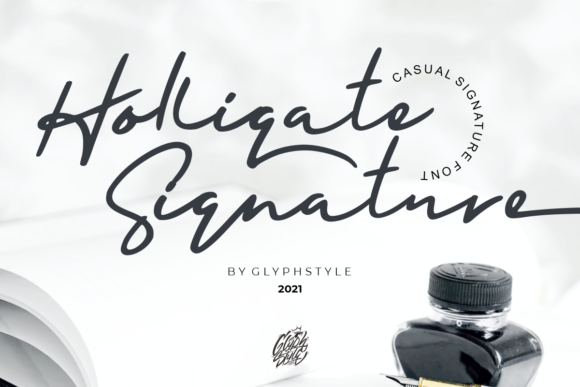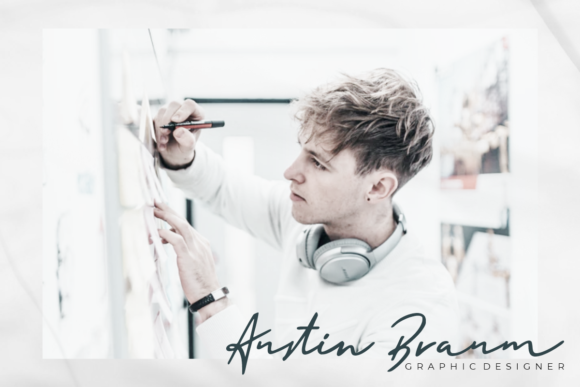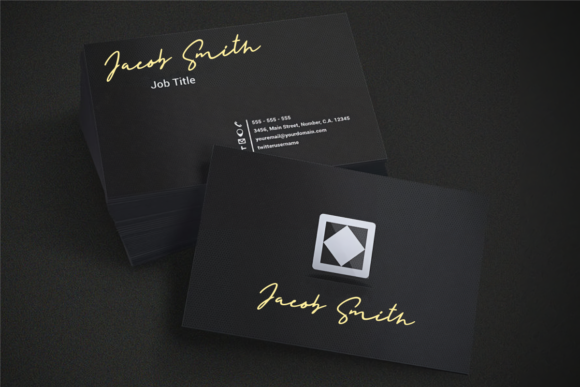
About Holligate Font
Holligate is a casual and flowing handwritten font. Simple and easy to use, this font will be very beautiful if you mix it with your various craft designs.